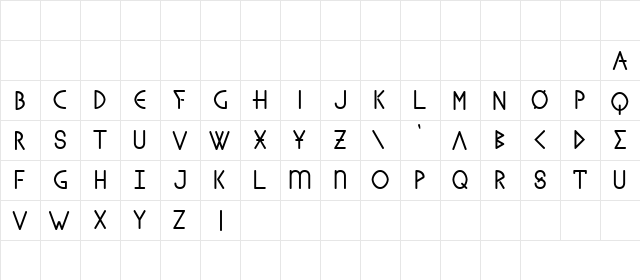
Sanhedrin Regular
Design Context for Sanhedrin Typeface
Sanhedrin offers clean, dependable letterforms without strong stylistic allegiance, making it a practical choice for designers who need flexibility.